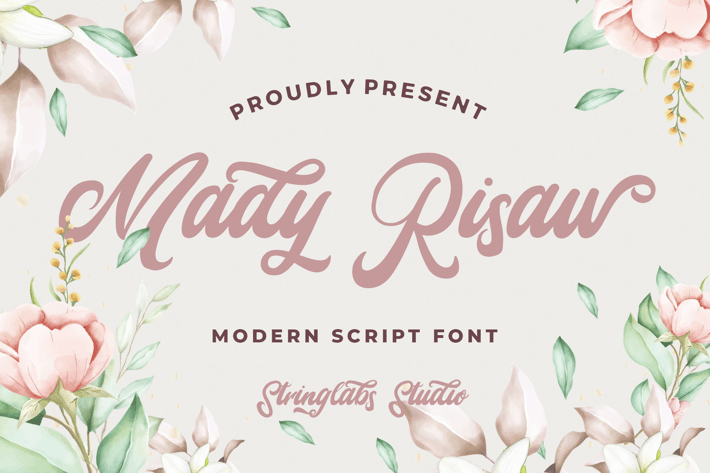
Mady Risaw - Modern Script Font
Introducing Mady Risaw - Modern Script Font
Mady Risaw is a bold script font with smooth curves and modern style that is just what you need for your next projects. Perfect for branding, logo design, posters, magazine covers and other design projects.
- Stylistic Alternates
Mady Risaw is a bold script font with smooth curves and modern style that is just what you need for your next projects. Perfect for branding, logo design, posters, magazine covers and other design projects.
- Stylistic Alternates